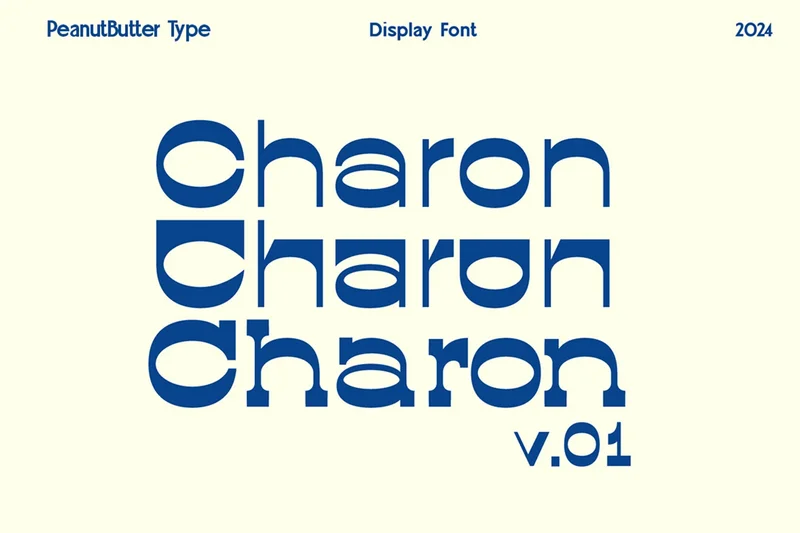
Charon
Charon isn’t just a font; it’s like having a friendly buddy for your designs. It’s fun and approachable, with its cool reverse contrast look that makes everything feel light and cheerful. Whether you’re making logos, posters, or anything else, Charon adds a happy vibe to your work!
This version (0.1) had: